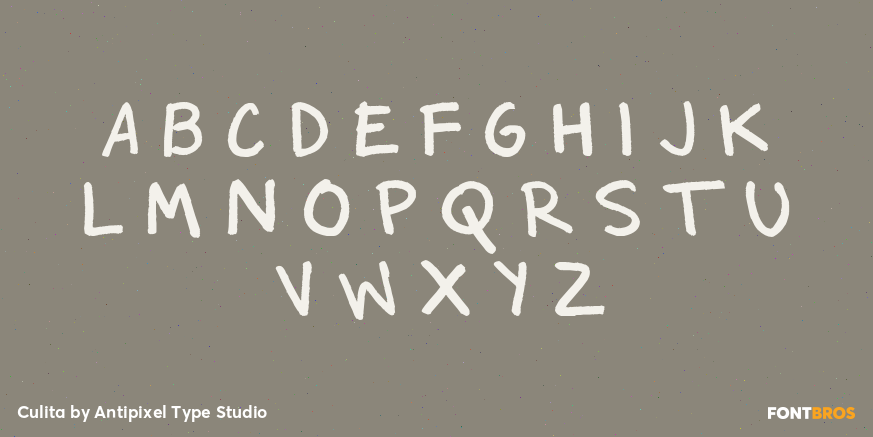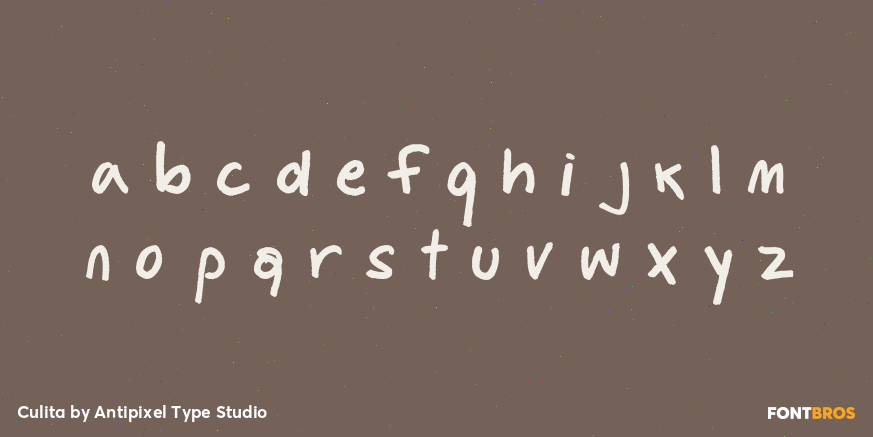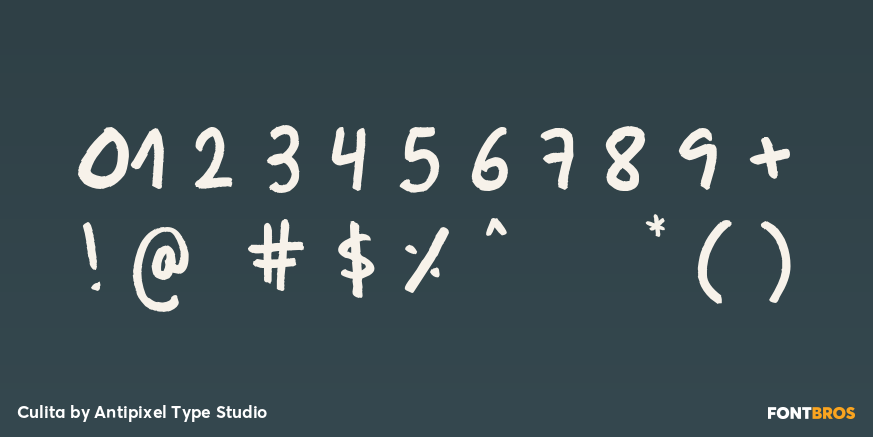
Culita
Culita is a casual handwritten script with a playful, friendly feel. Its bouncy baseline, monoline construction, rounded terminals, and slightly uneven stroke give it an organic, marker-drawn look that feels informal, quirky, and easygoing.
With its childlike energy and comic-like charm, this single-style family is well suited to designs that want to feel approachable rather than polished or rigid. Use it for cheerful branding, playful packaging, handmade-style graphics, social posts, craft projects, or display work that benefits from a warm, personal touch.
Created by Antipixel Type Studio, Culita offers a simple way to bring relaxed character and handwritten movement into a layout without feeling messy or overly ornate.